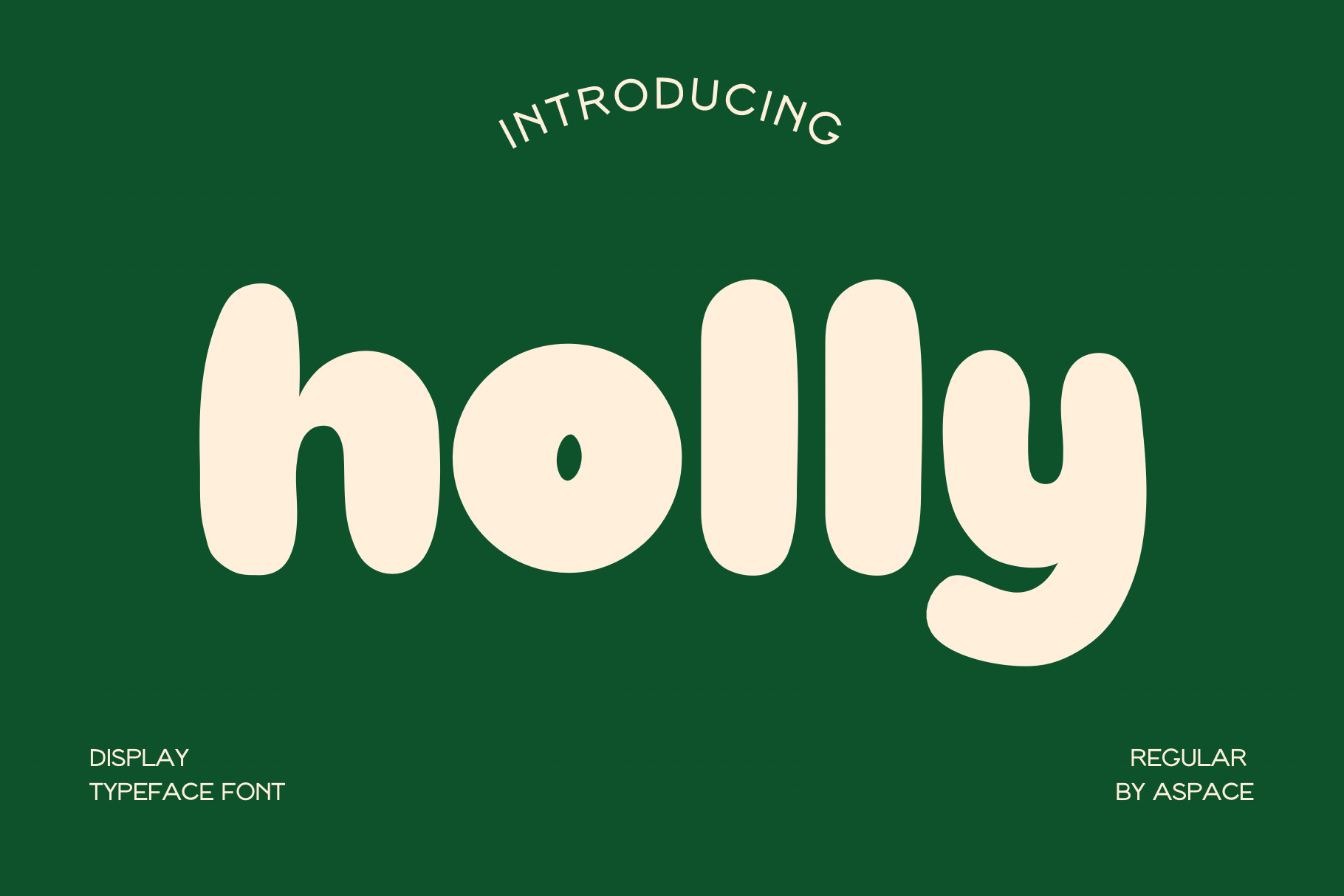
Holly - Display Font
Holly a playful and bold font Perfect for Halloween designs, logos, branding, packaging, apparel, cards, posters, quotes, social media posts, stickers and much more!
What's in the font? Uppercase and lowercase Letters , Numbers and _.,!?()*@&-